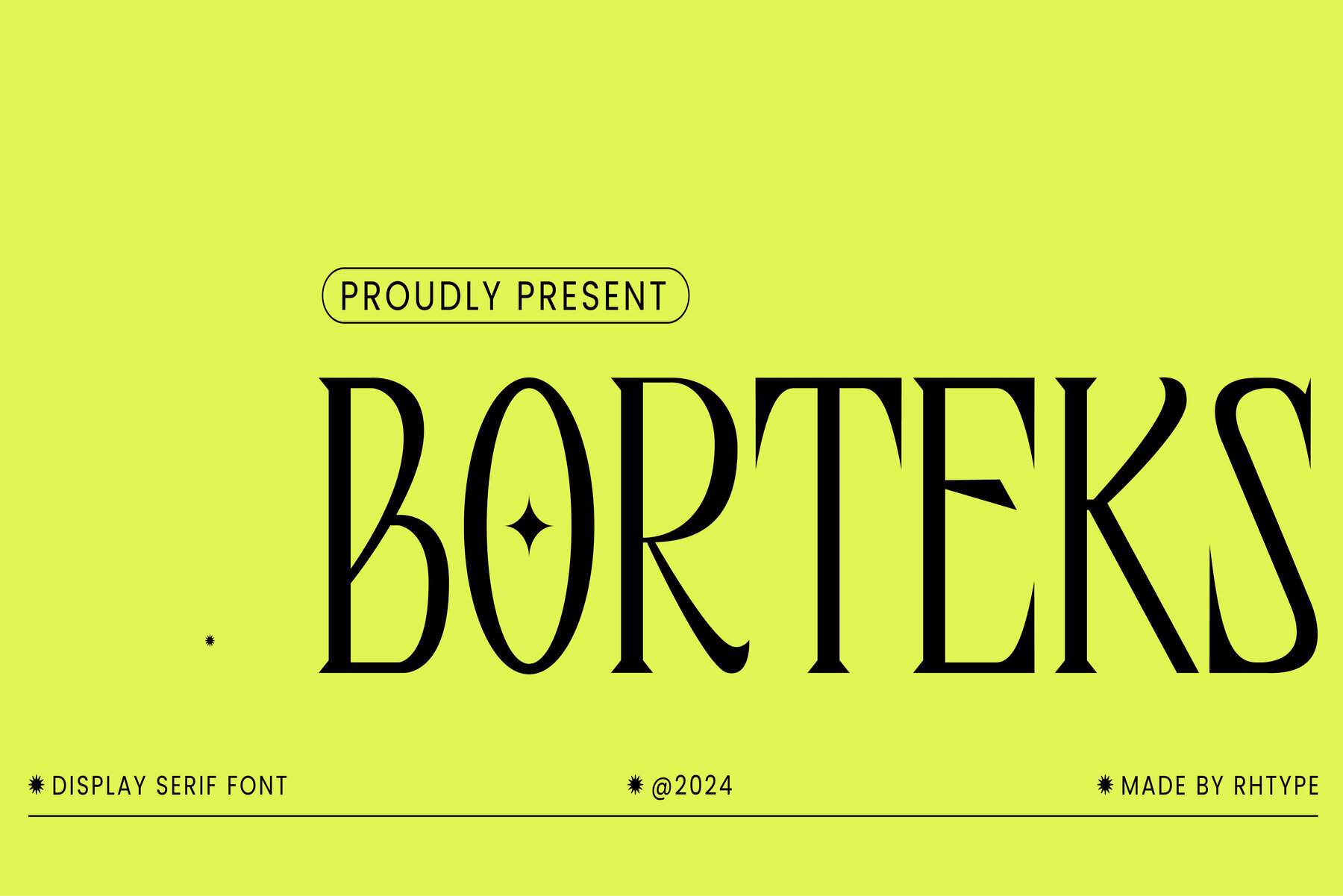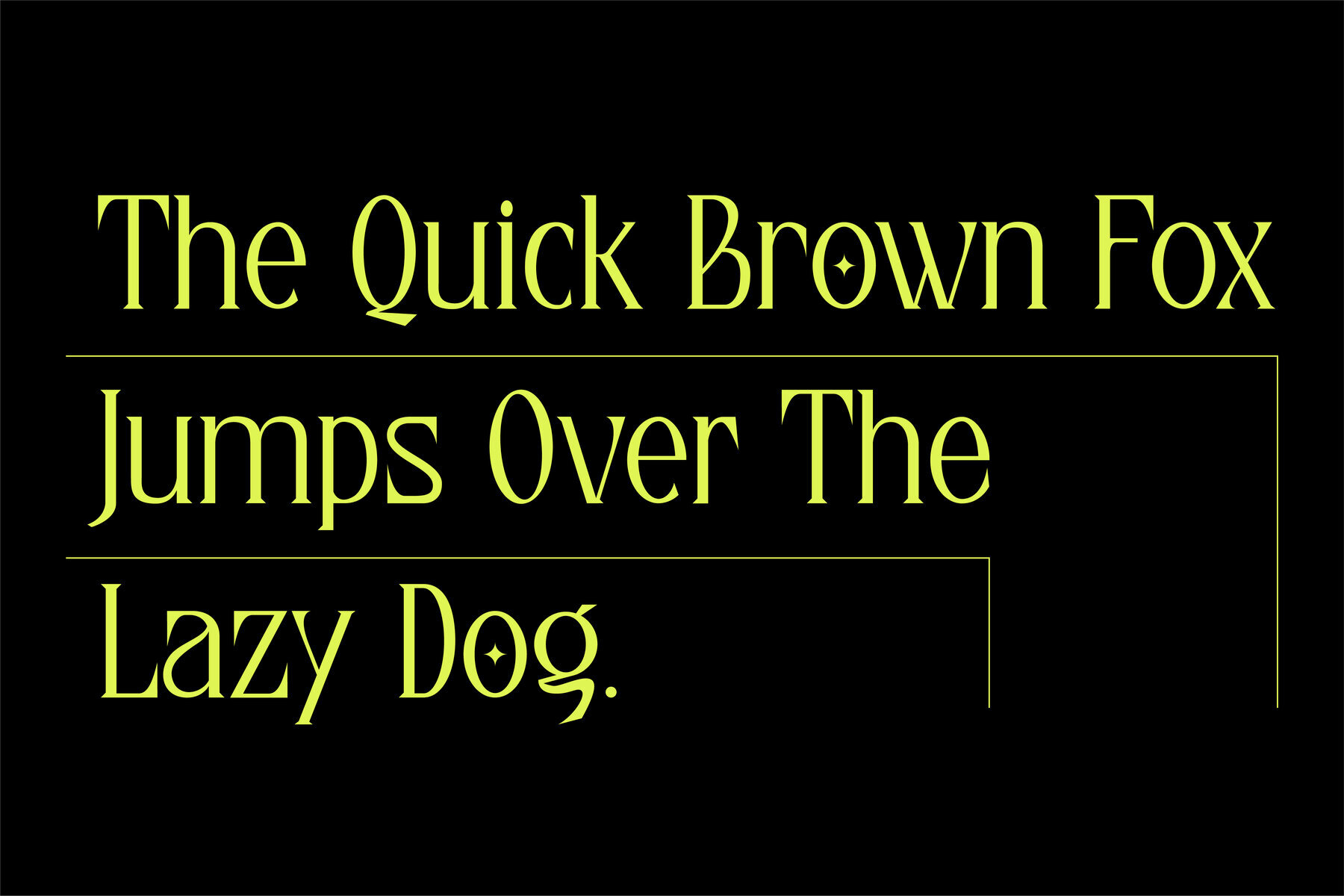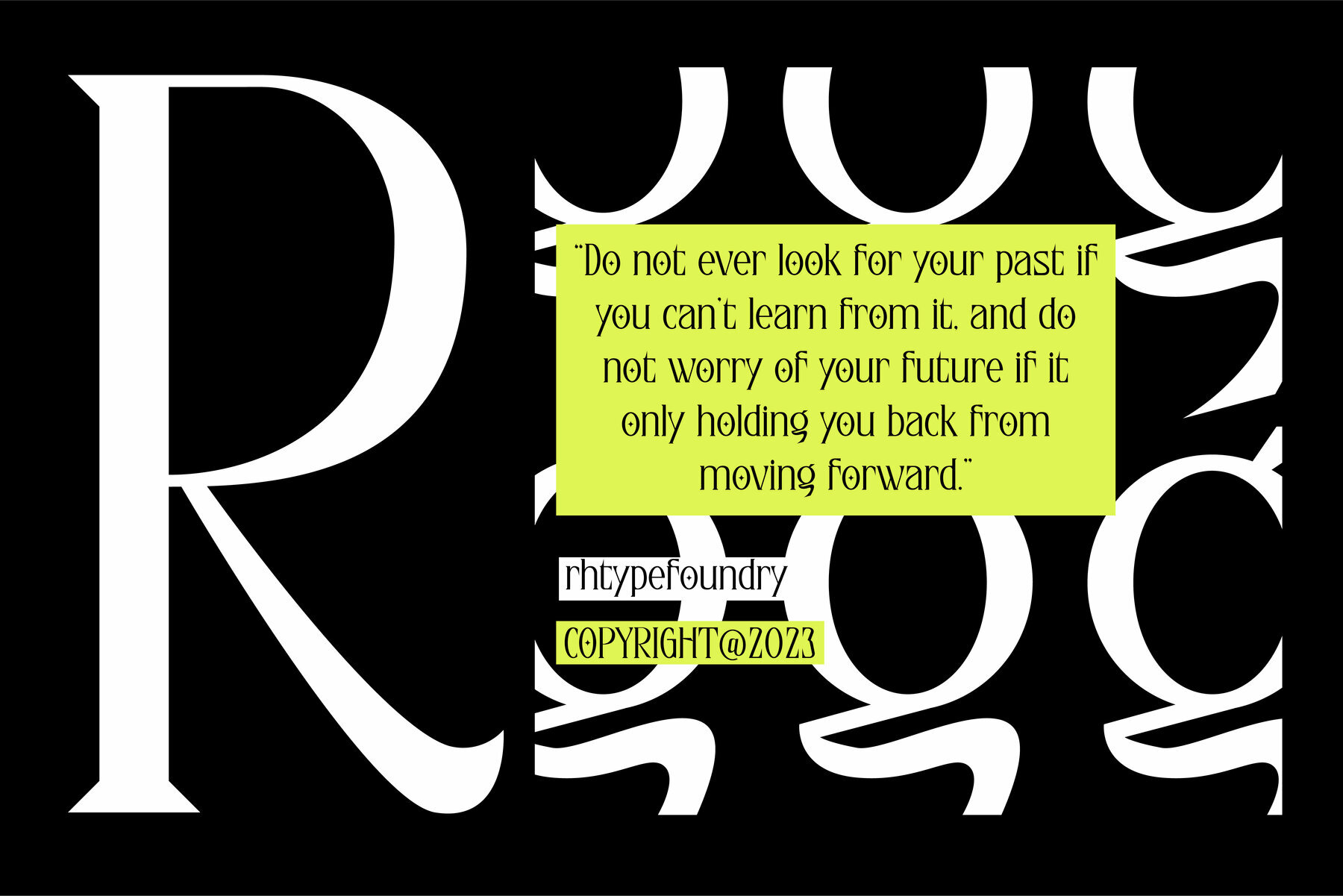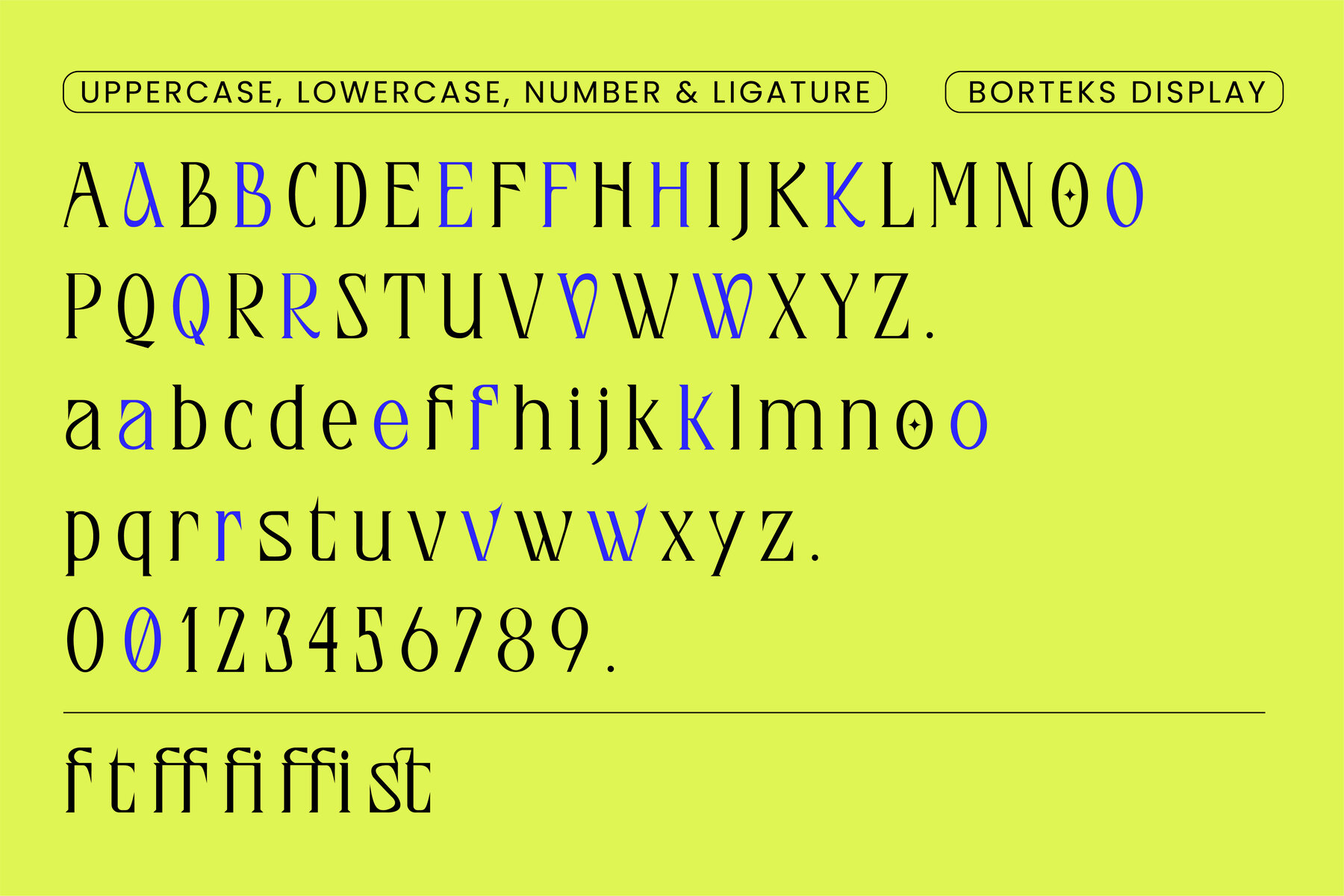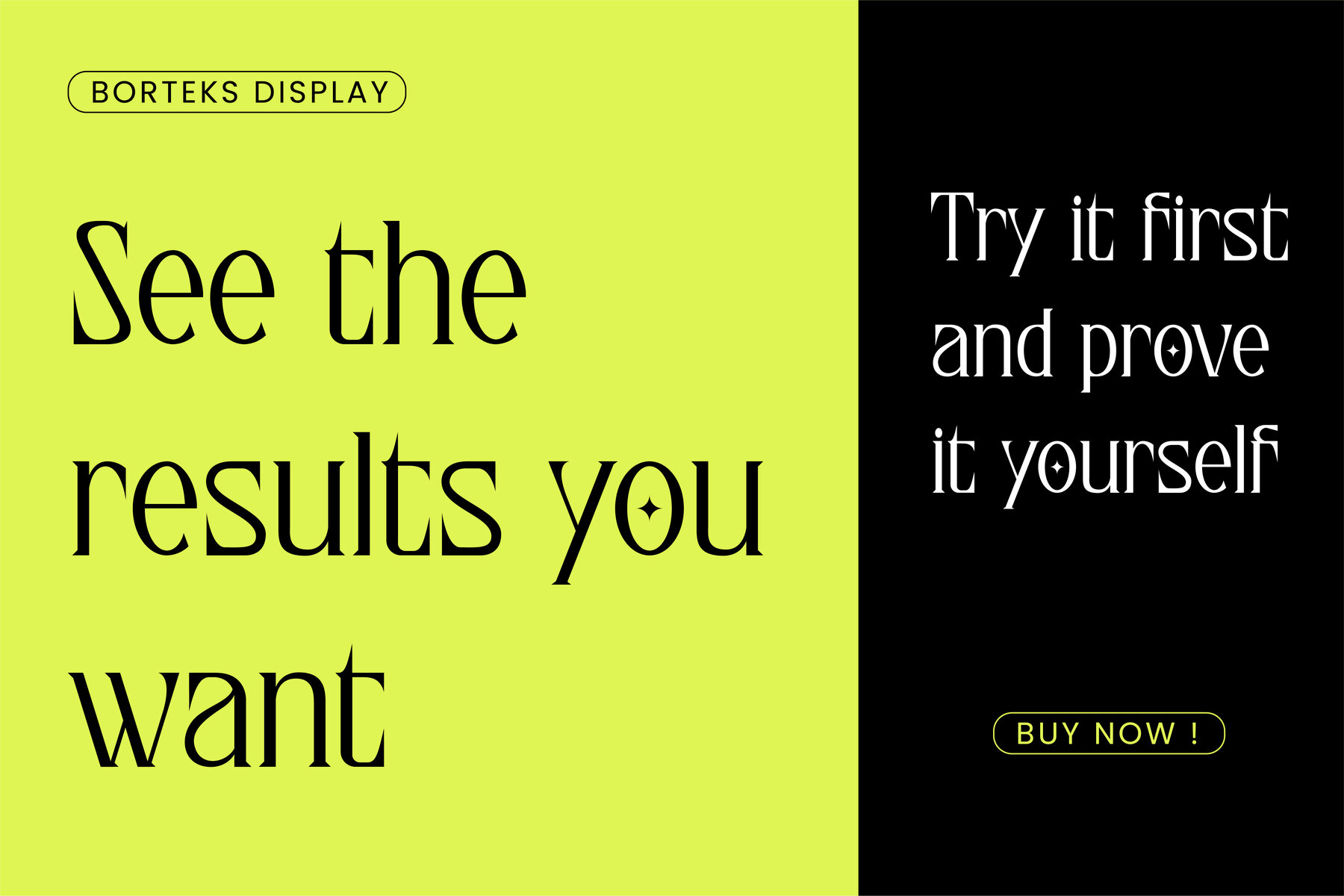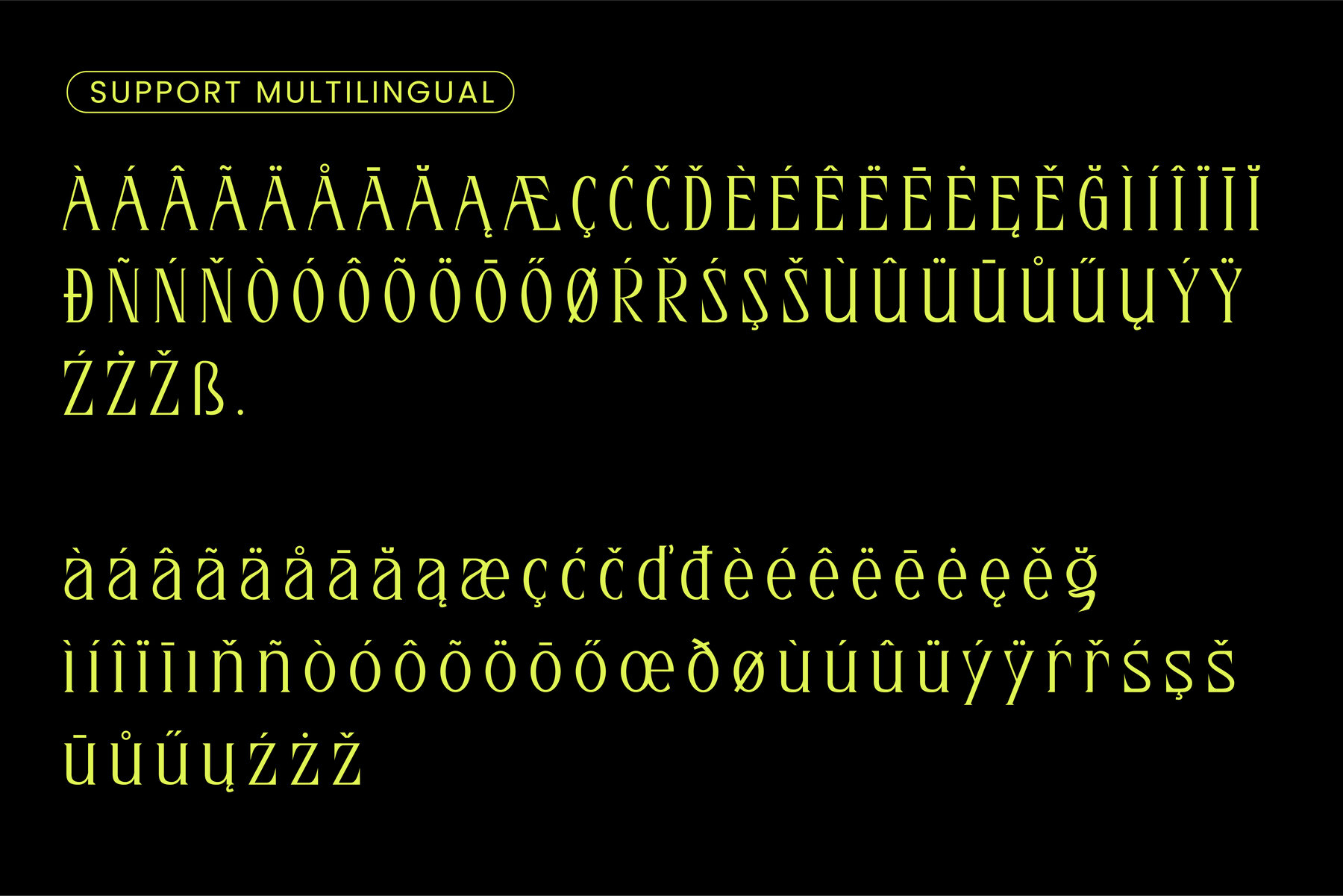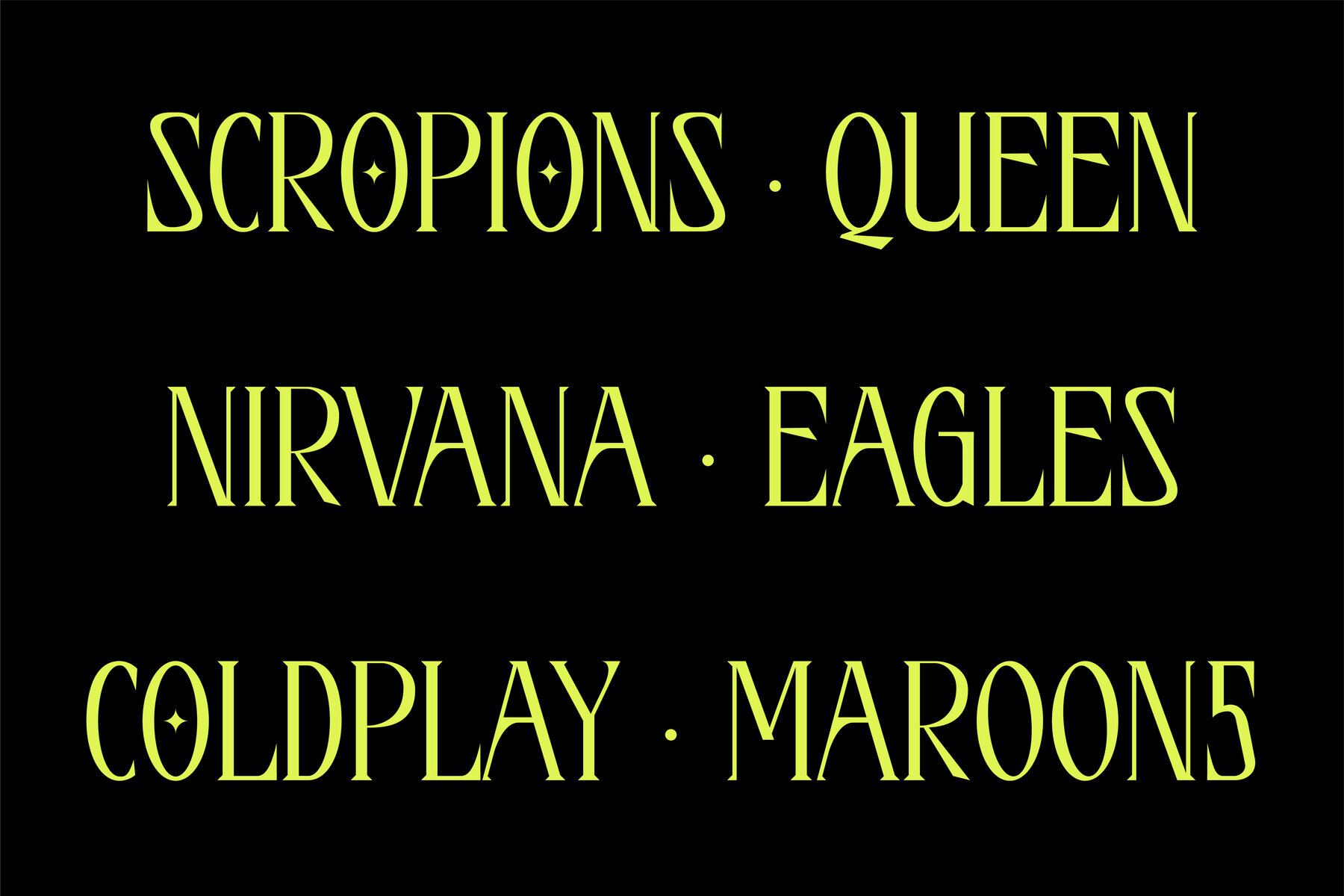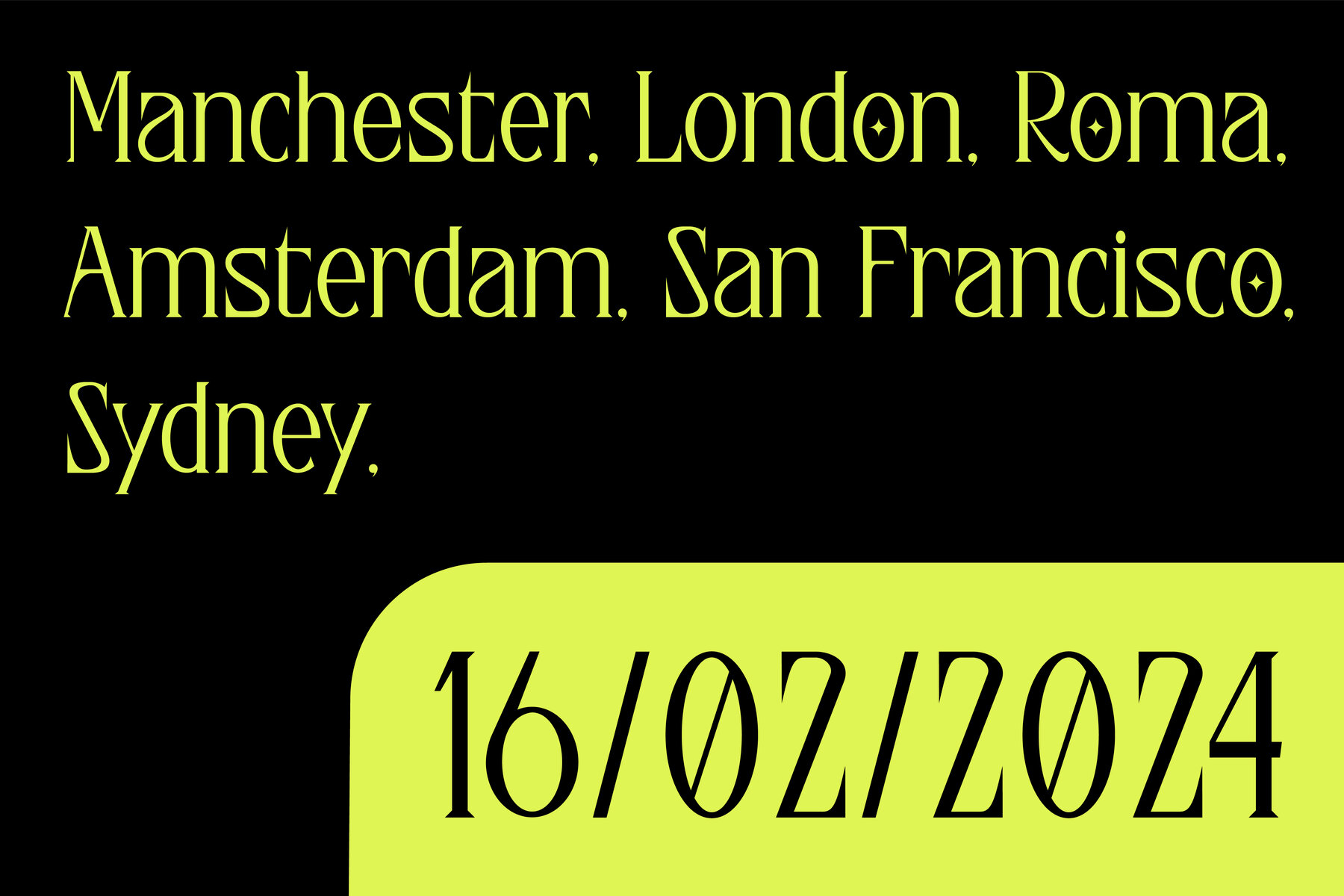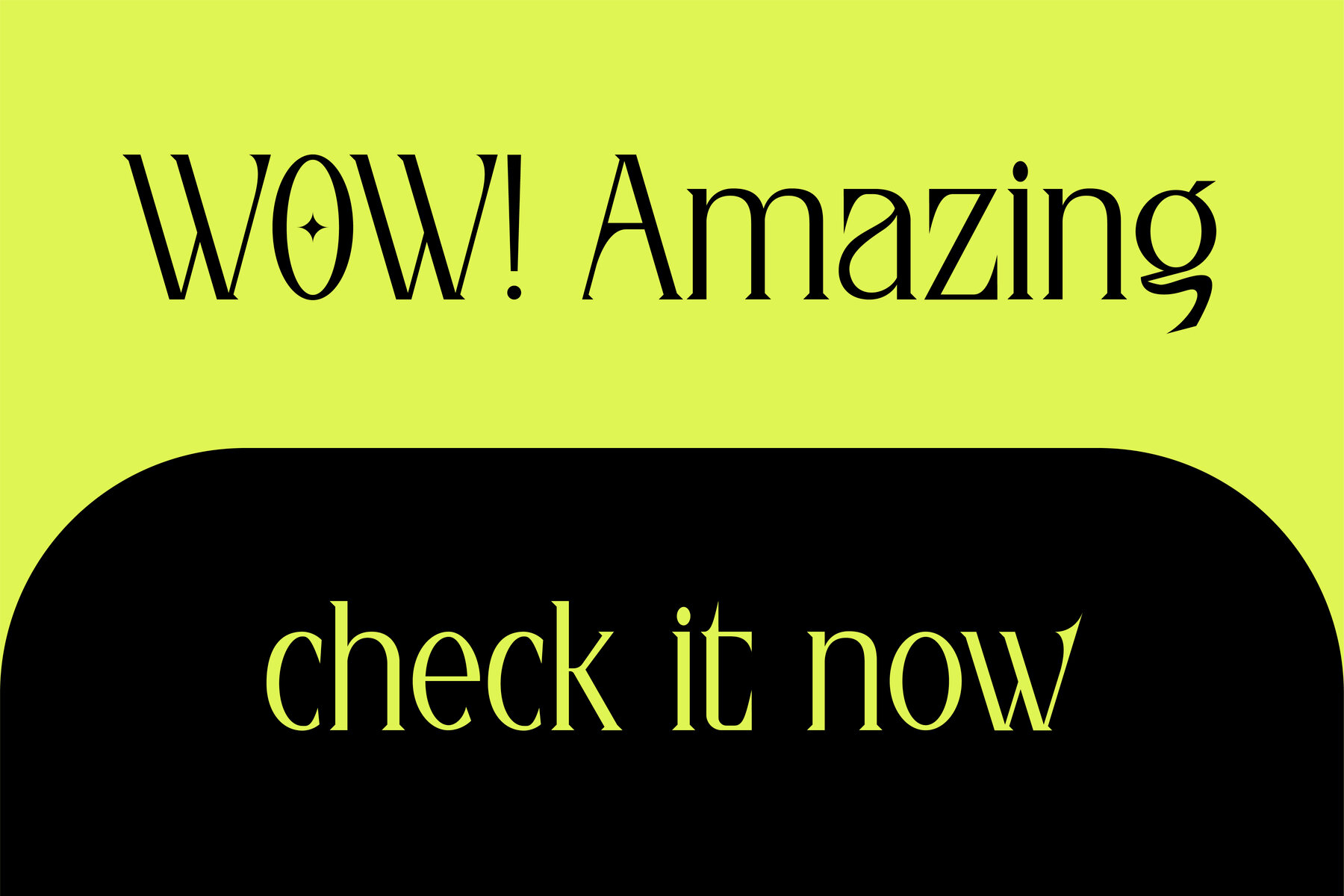
Borteks Font
Borteks Regular
Borteks font is a display serif typeface known for its firm, straightforward, and elegant characteristics. It is suitable for branding and various design projects. The clean lines and refined details of Borteks font convey a sense of sophistication and professionalism. Its bold yet graceful appearance makes it an excellent choice for creating a strong visual identity. Whether used in headlines, logos, or other design elements, Borteks font adds a touch of class and refinement to any project.